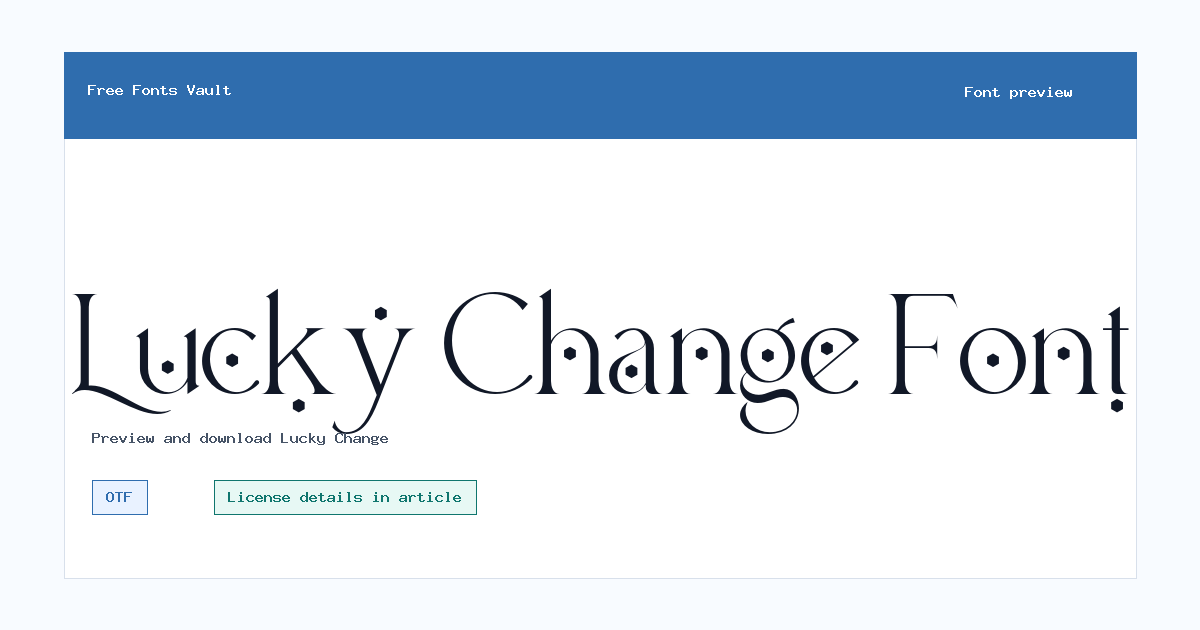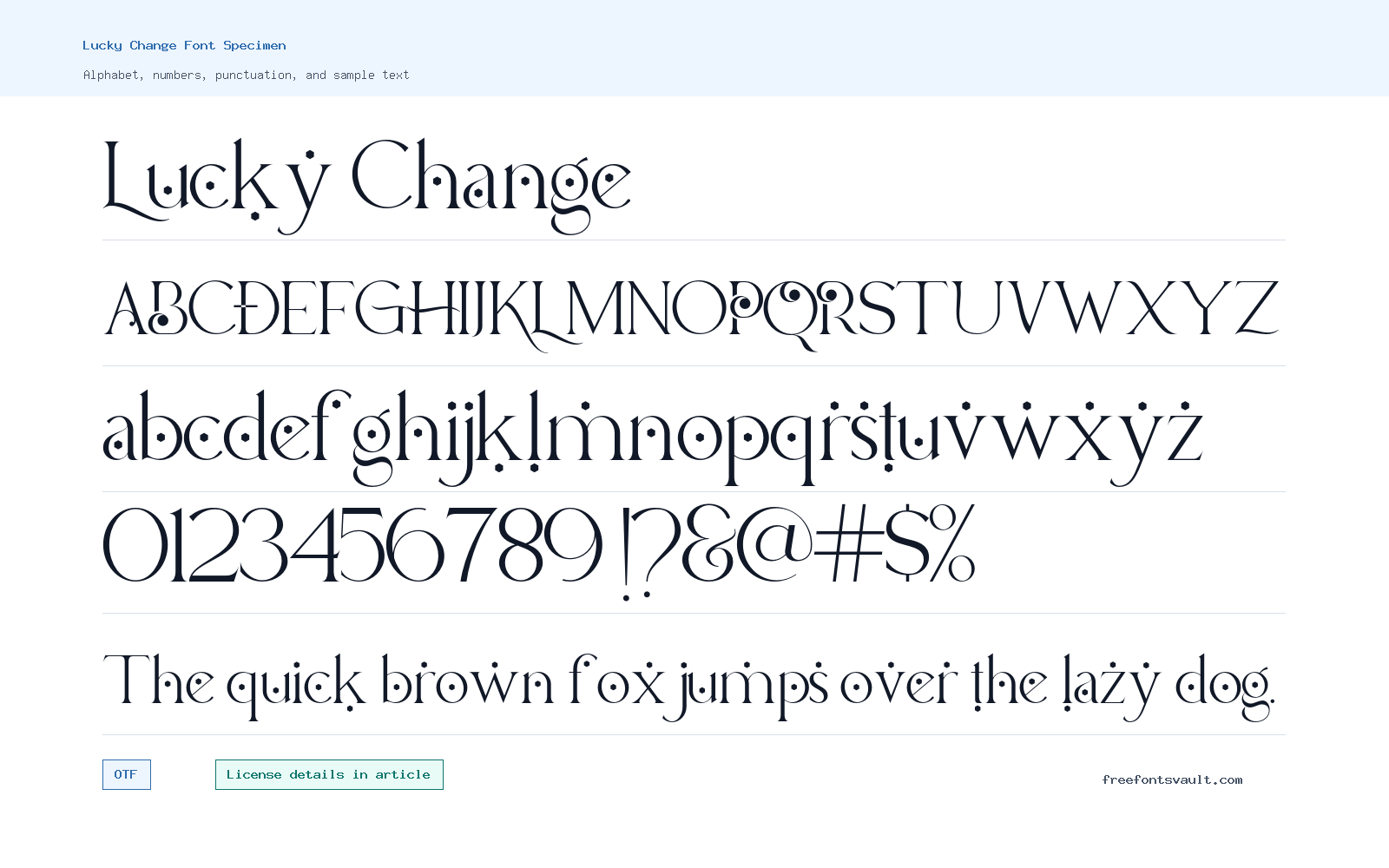
Lucky Change
- Designer Fathialghazi
Lucky Change font.
Lucky Change is an elegant display serif with a refined, luxury-leaning look. It works best when you need a stylish headline, logo concept, invitation title, or brand mockup with a polished editorial feel.
About Lucky Change Font
Lucky Change uses a high-end serif style with neat curves and decorative character options. The available font file is an OpenType font, which makes it suitable for testing in design apps that support OTF fonts. Sources connected to the typeface describe it as a serif inspired by simple and luxurious typography, so it is a better fit for short, expressive text than for long paragraphs.
Use Lucky Change for fashion layouts, beauty packaging mockups, elegant social posts, wedding or event invitations, magazine-style headings, and luxury logo concepts. Keep the text short in the preview tool and test both uppercase and lowercase words before downloading. If your software supports OpenType features, check whether alternates or stylistic options are available, because those details can change the feel of a wordmark.
- Elegant display serif style suited to short titles, branding drafts, and refined layout work
- OpenType font format with sources describing alternate characters and OpenType features
- Best used at larger sizes where its serif details and curves are easy to see
- Luxury logo concepts
- Editorial titles
- Fashion layouts
- Beauty packaging mockups
- Wedding and event invitations
- Elegant social media graphics
- Brand moodboards
- Short display headings
Lucky Change is credited to Fathialghazi in the local font information, while external listings connect the font with Fathi Al Ghazi and Youthlabs Studio.
For best results, try Lucky Change in short words or phrases first. It may look strong in names, initials, product titles, and invitation headings, but it is not the safest choice for dense body copy. Pair it with a clean sans serif or a quiet text serif so the decorative headline style stays readable and does not compete with the rest of the layout.
What kind of font is Lucky Change?
Lucky Change is an elegant display serif. It is intended more for stylish titles, branding drafts, packaging mockups, and invitation text than for long reading.
Who designed Lucky Change?
The font is credited locally to Fathialghazi. External marketplace and portfolio sources also connect Lucky Change with Fathi Al Ghazi and Youthlabs Studio.